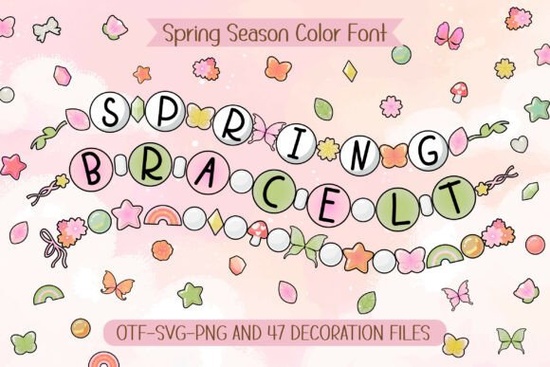
If you are looking to add a playful, handmade touch to your seasonal projects, the Spring Bracelet Font is a fantastic choice. You can explore more about the Spring Bracelet design online. This style captures the nostalgic feel of childhood friendship bracelets, mixing soft pastel beads with cheerful spring shapes. Whether you are designing custom t-shirts for a spring break trip or creating cute party invitations, this typeface brings a sweet, colorful vibe that stands out.
When you download this set, you are getting a lot of creative material to work with. The bundle includes four distinct fonts three for your standard lettering and one dedicated entirely to decorations. Each letter is designed to look like an individual bead on a string, styled in girly, spring-themed shapes.
Beyond the typography, you also receive 47 matching decoration cliparts. These extra elements let you add little flowers, hearts, and pastel shapes around your text without having to draw them yourself. The soft color palette is already built in, meaning you get that fresh, cheerful look right out of the box.
How can I use these beads and letters in my craft projects?
Because the letters mimic physical beads, this style works beautifully for projects that need a tactile, DIY feel. Print-on-demand sellers can use it to create adorable apparel for kids or trendy pastel streetwear. Crafters will find it perfect for vinyl decals on water bottles, custom scrapbook pages, and handmade greeting cards.
Is this typeface easy to work with for beginners?
Yes, it is very beginner-friendly, especially if you are using software like Cricut Design Space, Silhouette Studio, or Canva. The decoration font is particularly helpful because it allows you to type a character and instantly get a matching bead or charm.
For those using the 47 clipart elements, simply drag and drop them onto your canvas. You can resize them to fit perfectly between your words or scatter them around the borders of your design. Since the colors are soft pastels, they blend easily with most background colors without clashing.
What are the best practices for printing these pastel designs?
When working with light pastel colors, the printing surface matters. If you are making stickers or printing on dark t-shirts, the soft pinks, mint greens, and baby blues might not show up well.
- For apparel: Always use a white underbase or print on light-colored garments.
- For paper crafts: Stick to white or very light cream cardstock to let the pastel beads pop.
- For digital use: Place the text on a slightly contrasting background, like a soft lavender or pale yellow, to make the white highlights on the beads visible.
Quick Checklist for Your Next Spring Project
Before you start designing, make sure you have everything ready to go:
- Choose a background color that complements the soft pastel beads.
- Type out your main phrase using the letter fonts.
- Use the decoration font or cliparts to fill in any empty gaps around your text.
- Check your contrast and adjust your background if the light colors blend in too much.
Pro tip: If you are cutting these out on a vinyl cutter, use the decoration font to create little standalone charms. You can weed them out individually and apply them as random accents around your main design for a truly authentic friendship bracelet look.